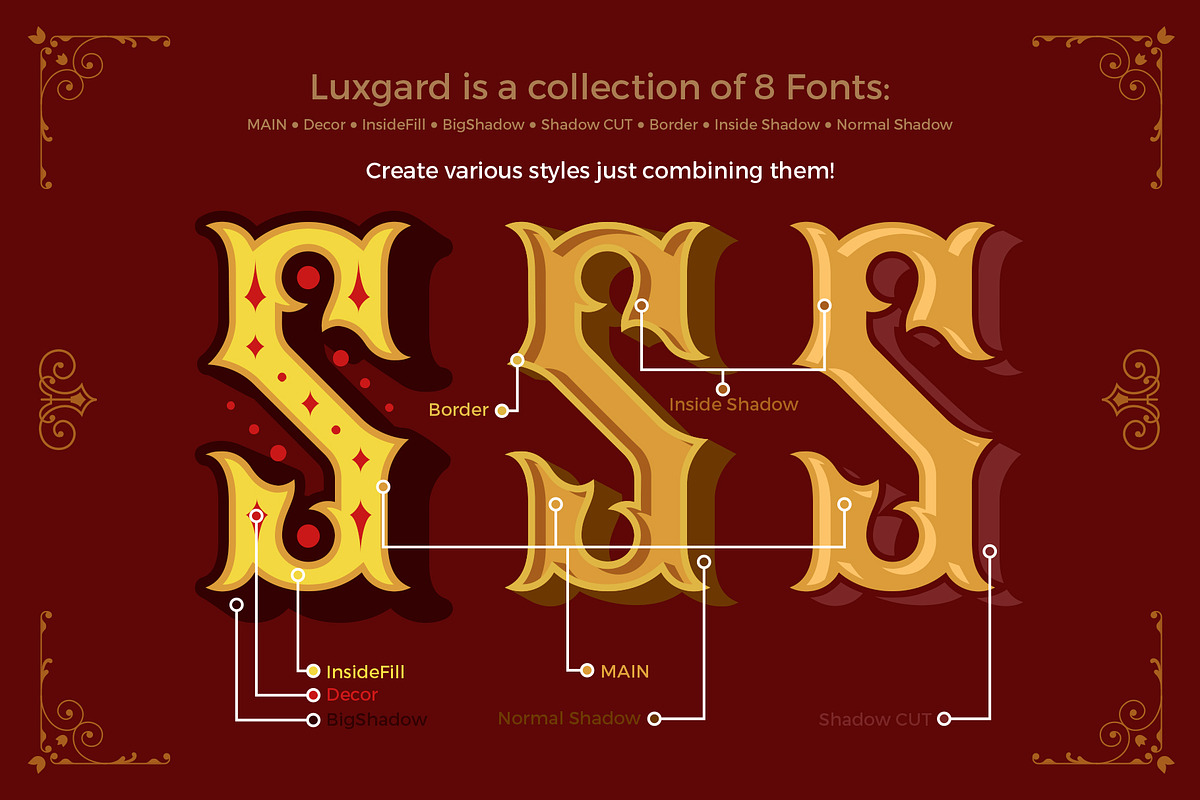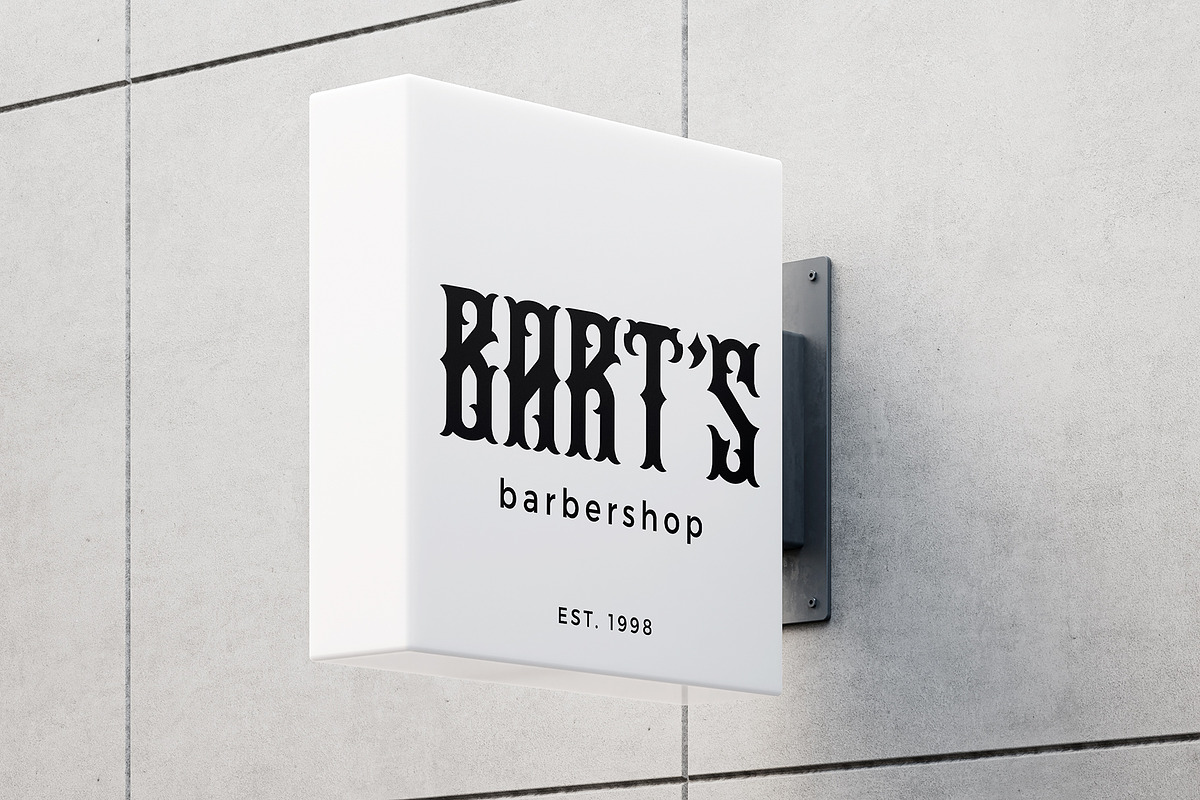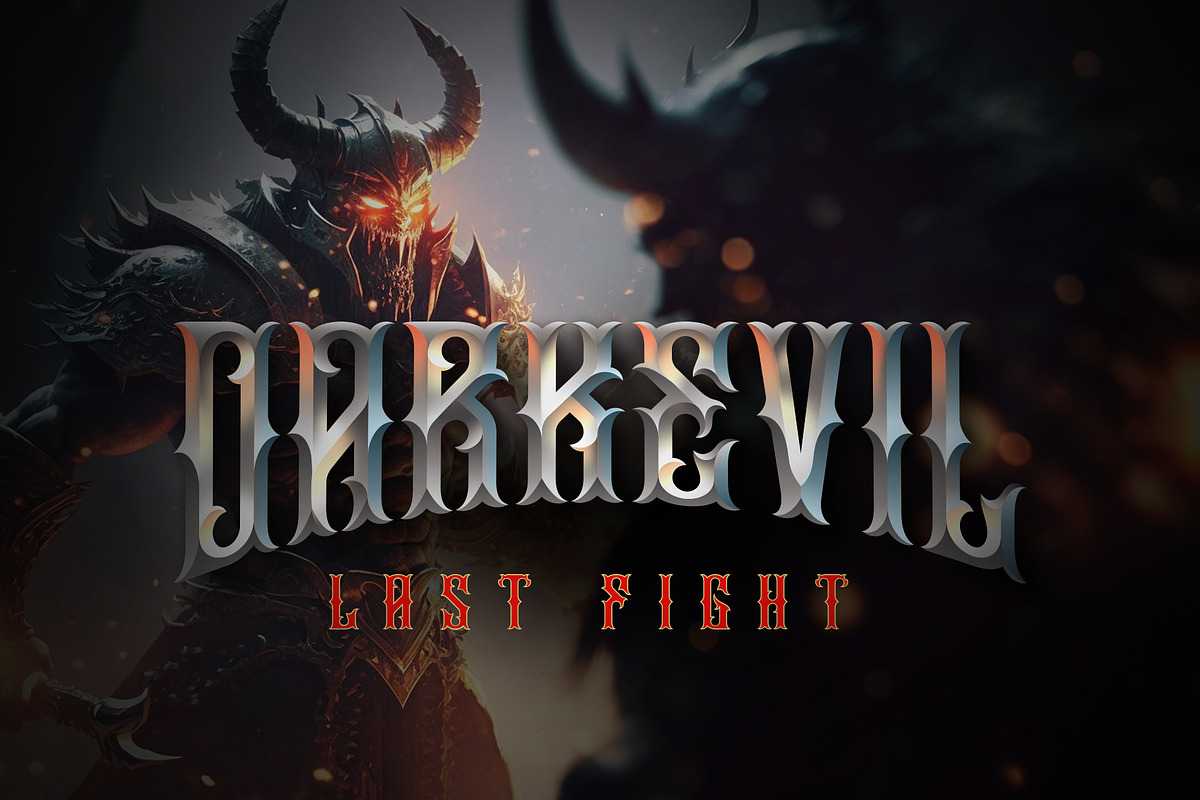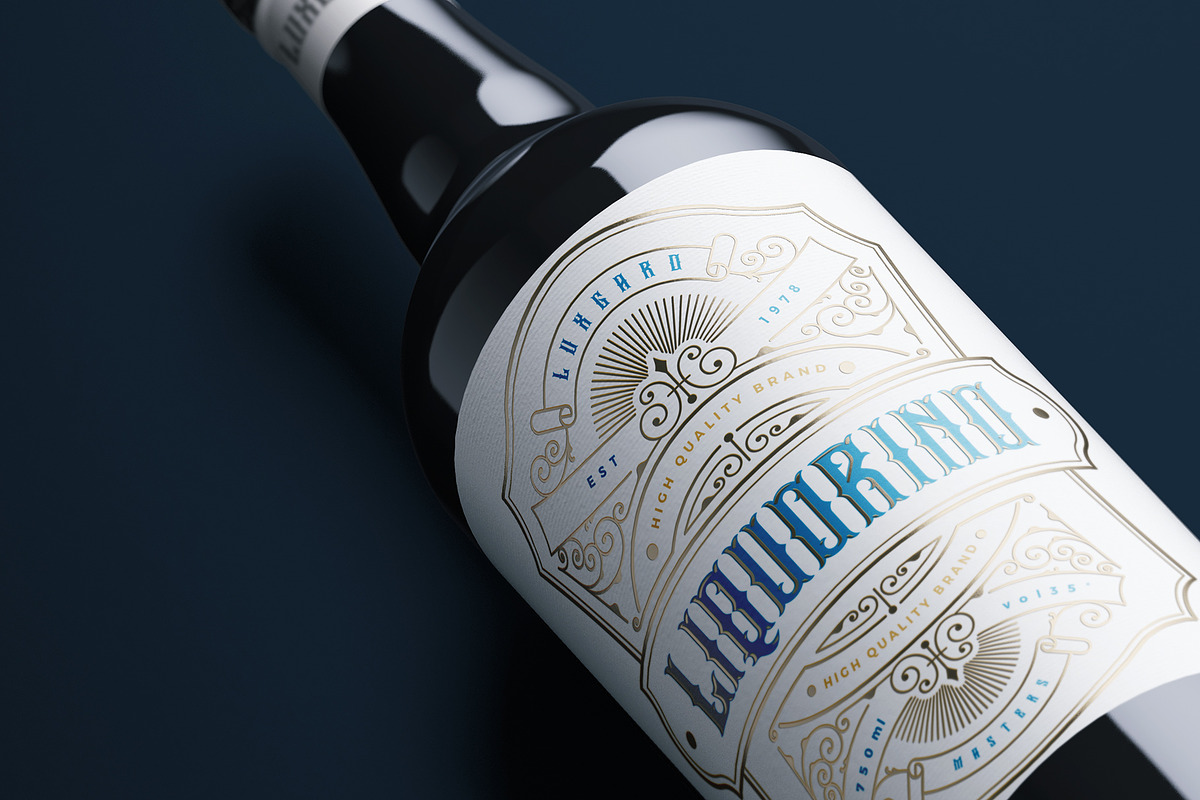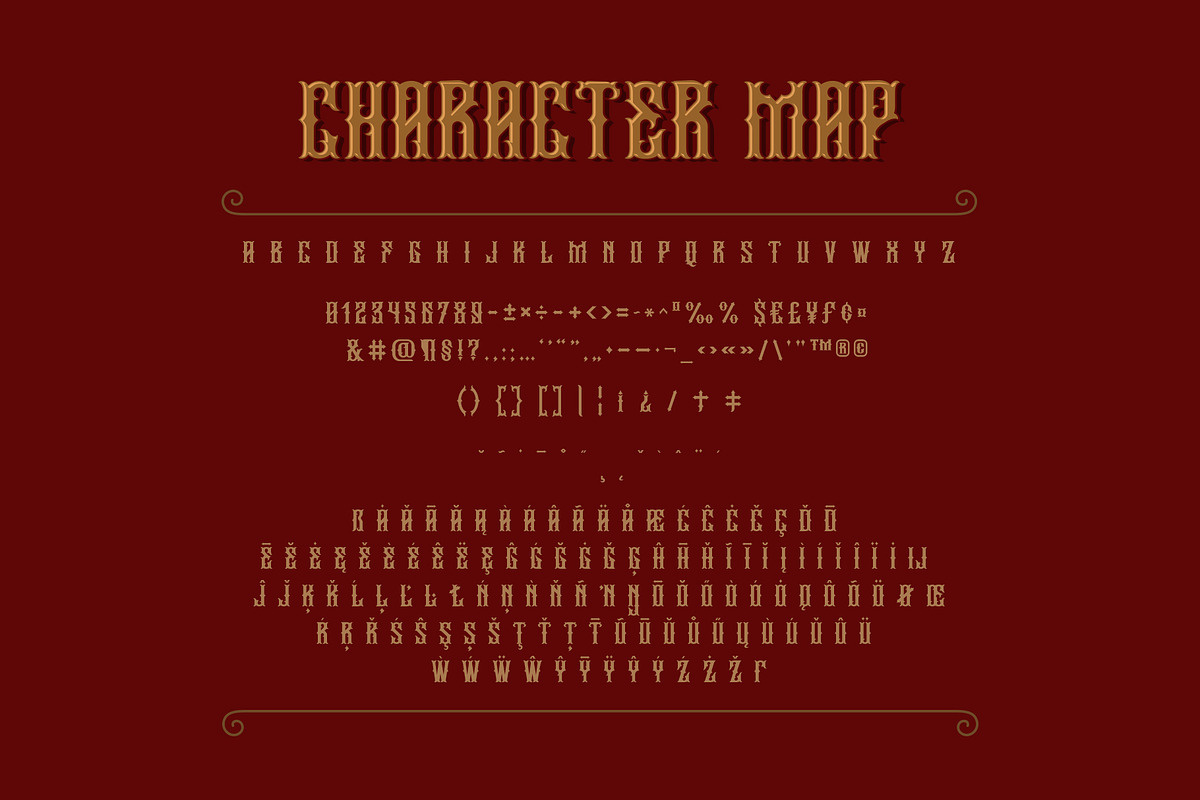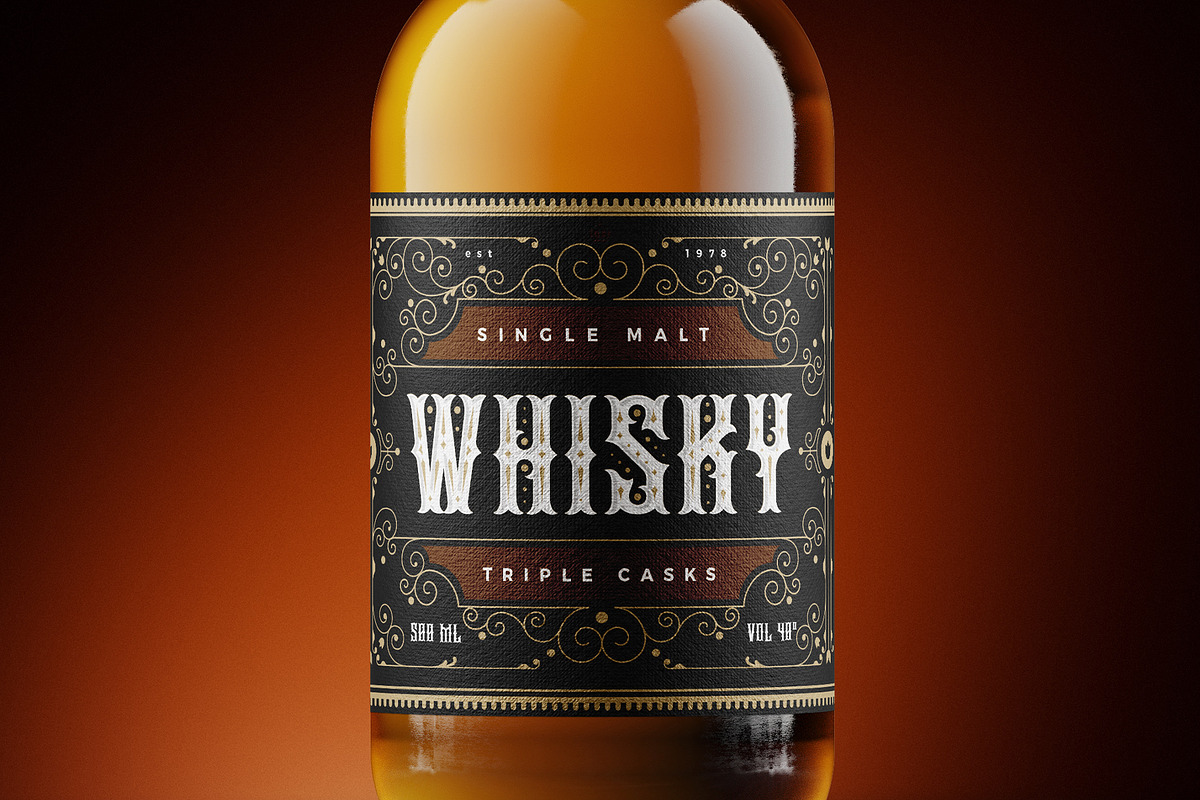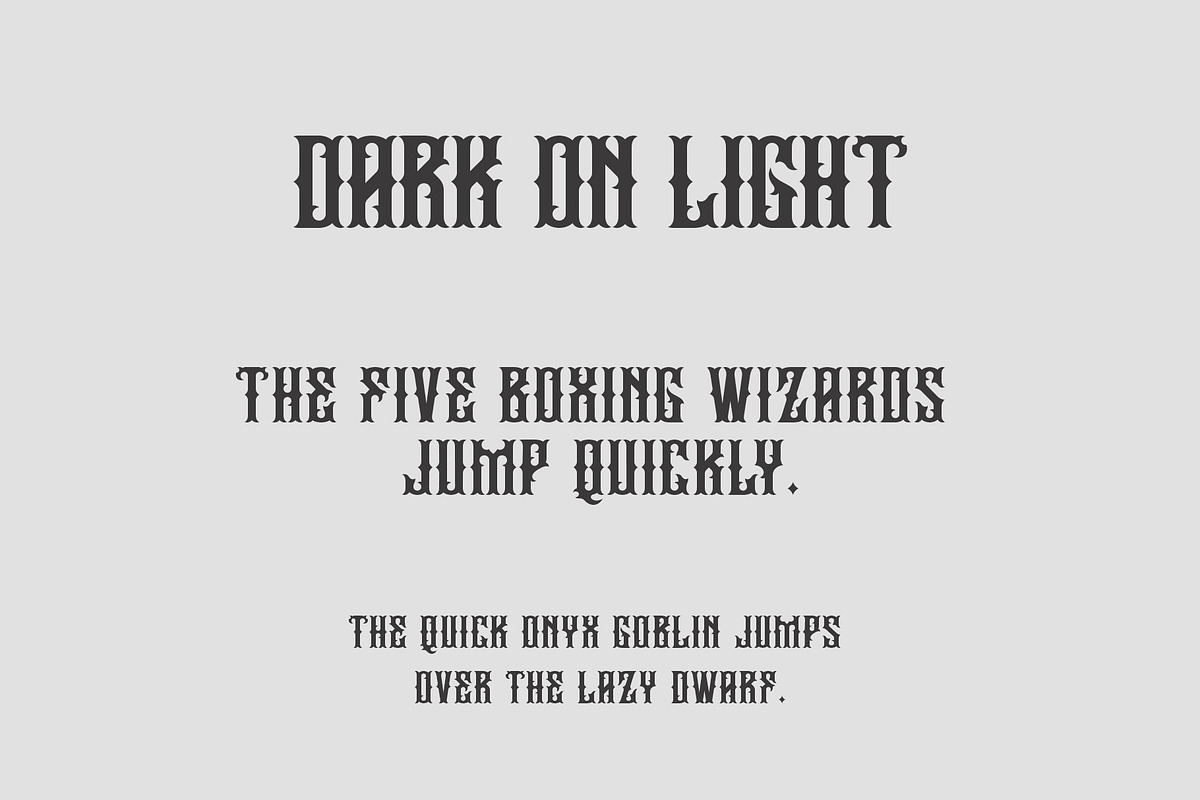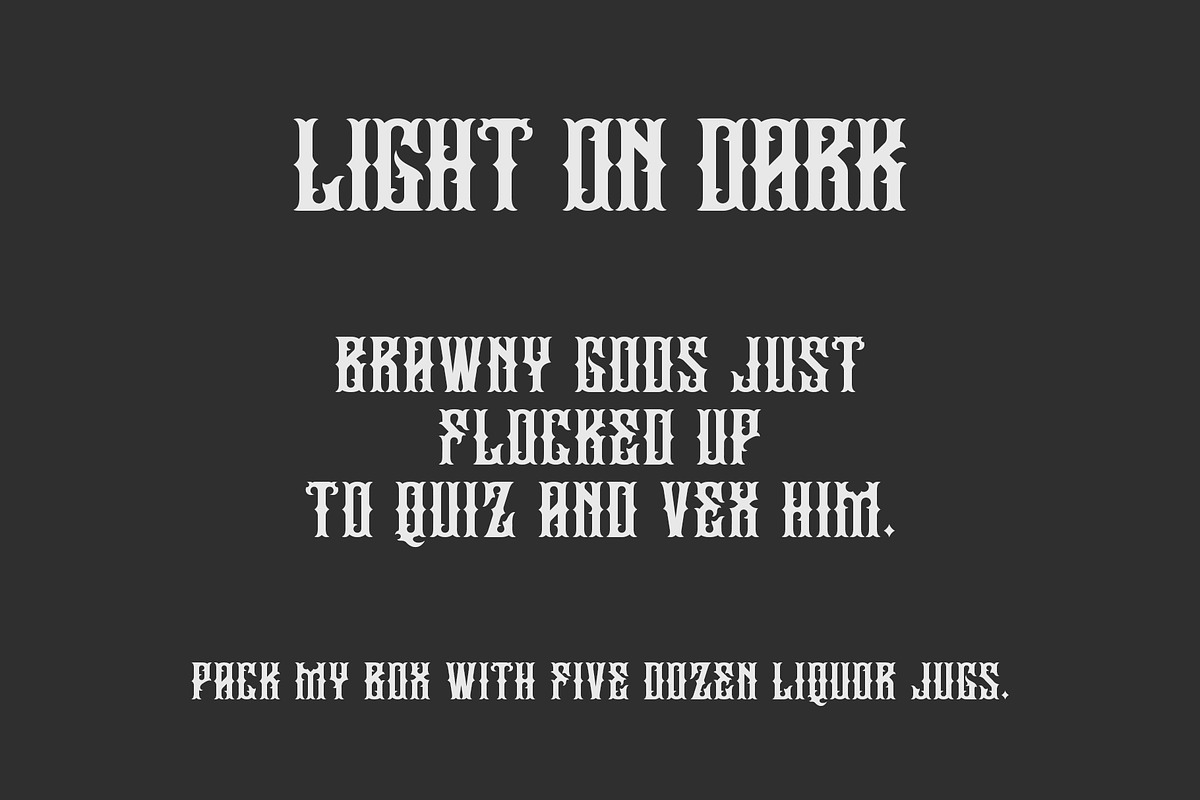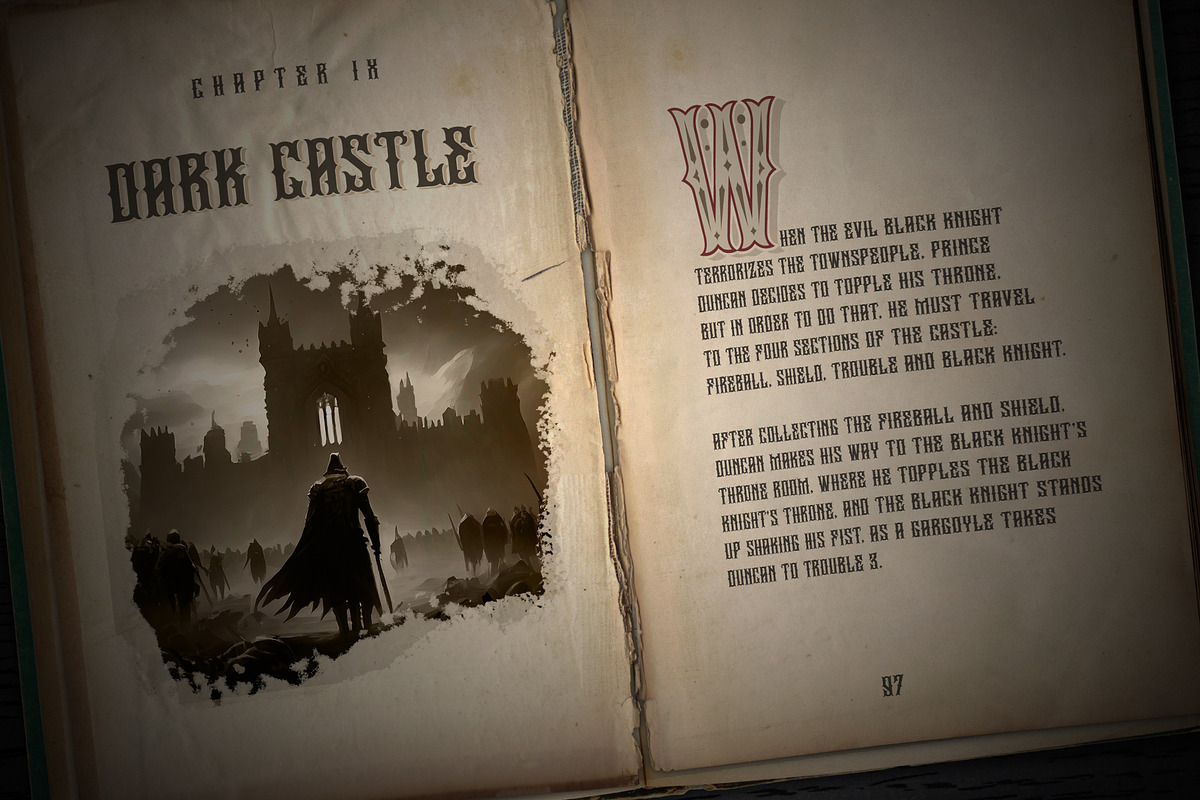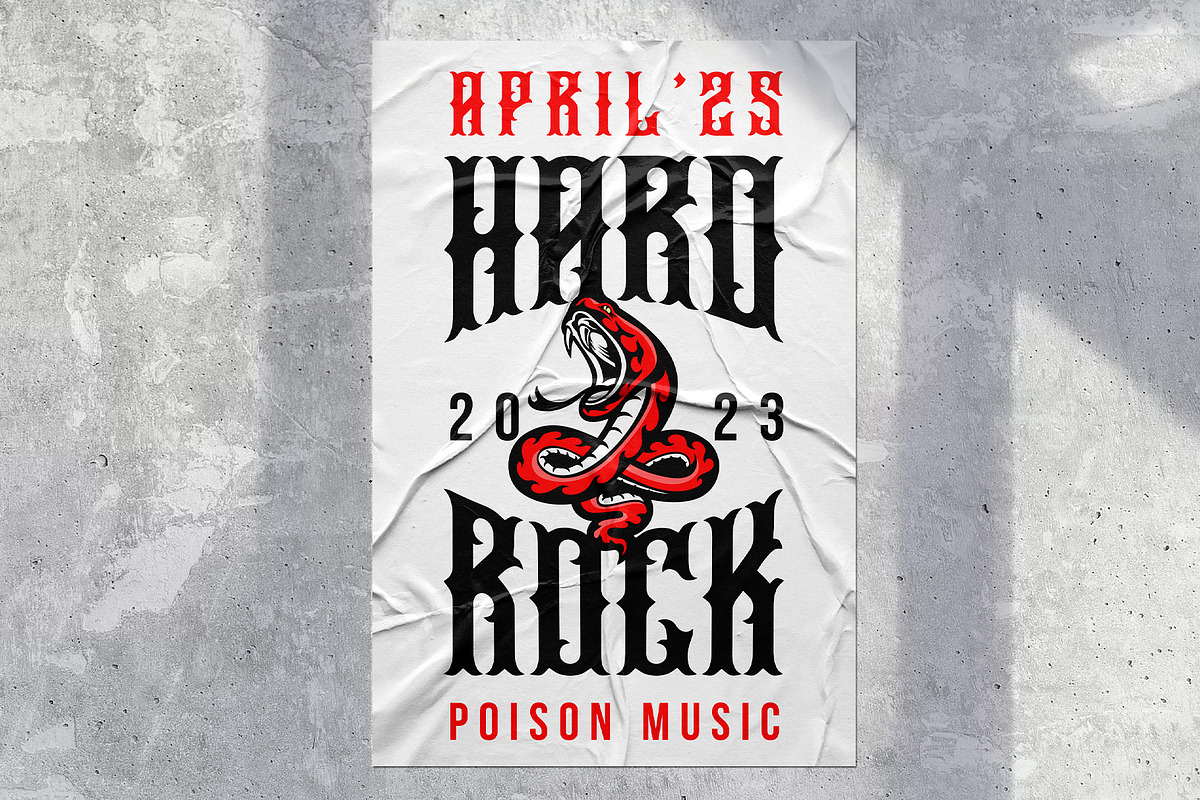
Luxgard
Luxgard is an authentic Layered Vintage Font of 8 Layers (done as family fonts) created for such areas as Media & Entertainment, Food & Drinks, Clothes, Music, Games & Applications, etc. with Multilingual support. Well use in vintage labels, headers & titles, Posters, Street Signs and other Outdoor, Package Design.
Shortly about Layers (please see the preview image with three letters S):
- Main (main font)
- Normal Shadow (the shadow is going currently from the end of a letter)
- ShadowCUT (same as "Normal Shadow", just "detached" from a letter)
- BigShadow
- Border
- Inside Shadow (you mauy play with it making it lighter or darker than "Main")
- InsideFill
- Decor (Decoration elements inside and outside the letters)
You can make different combinations of these Layers to get amazing looks of designs. Please see the preview images to see how it works.